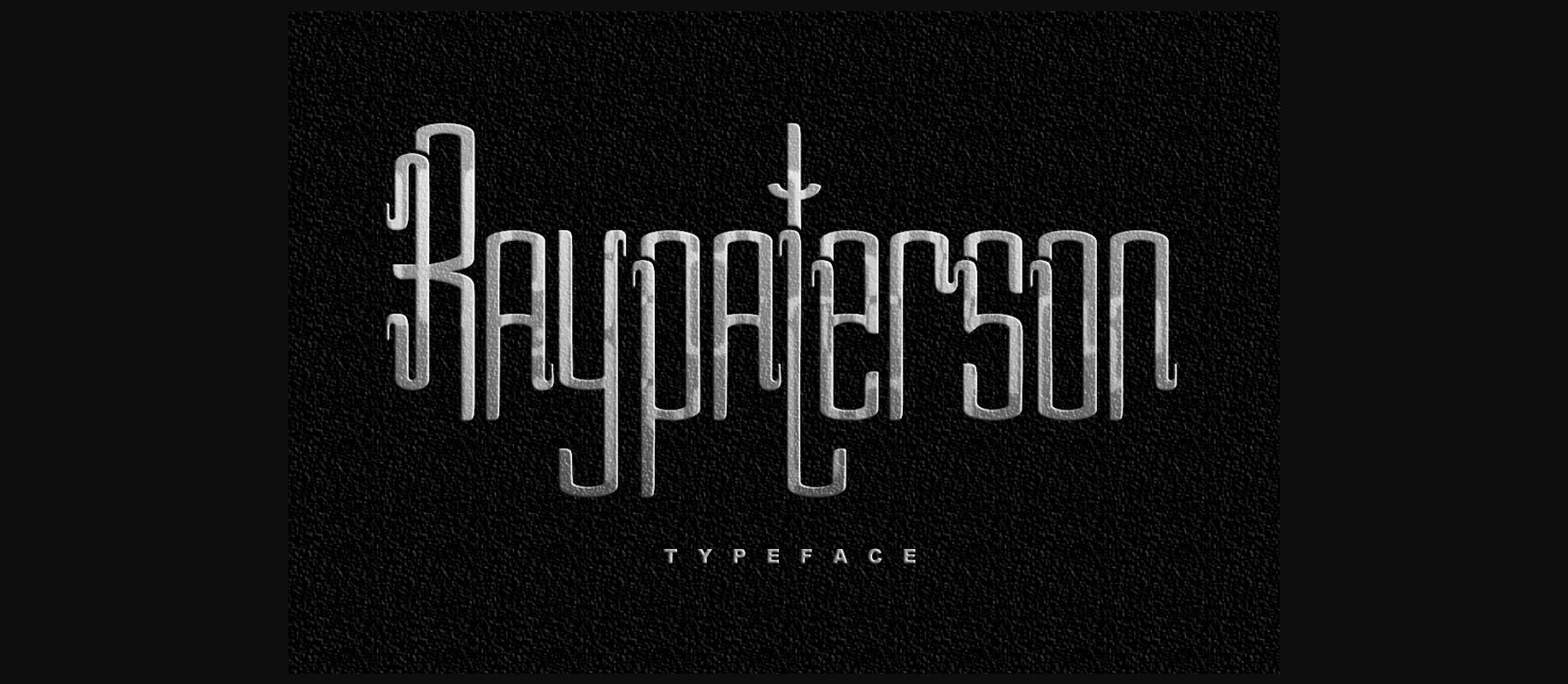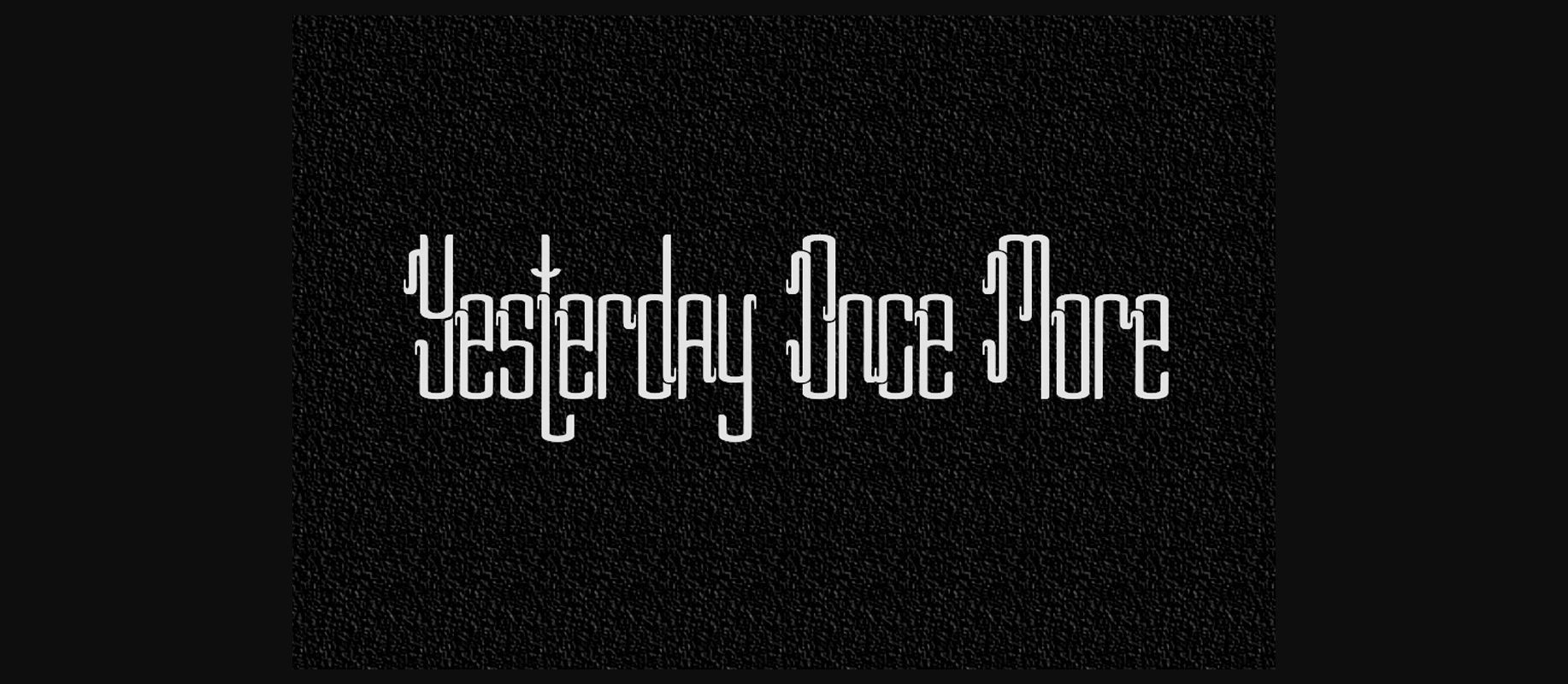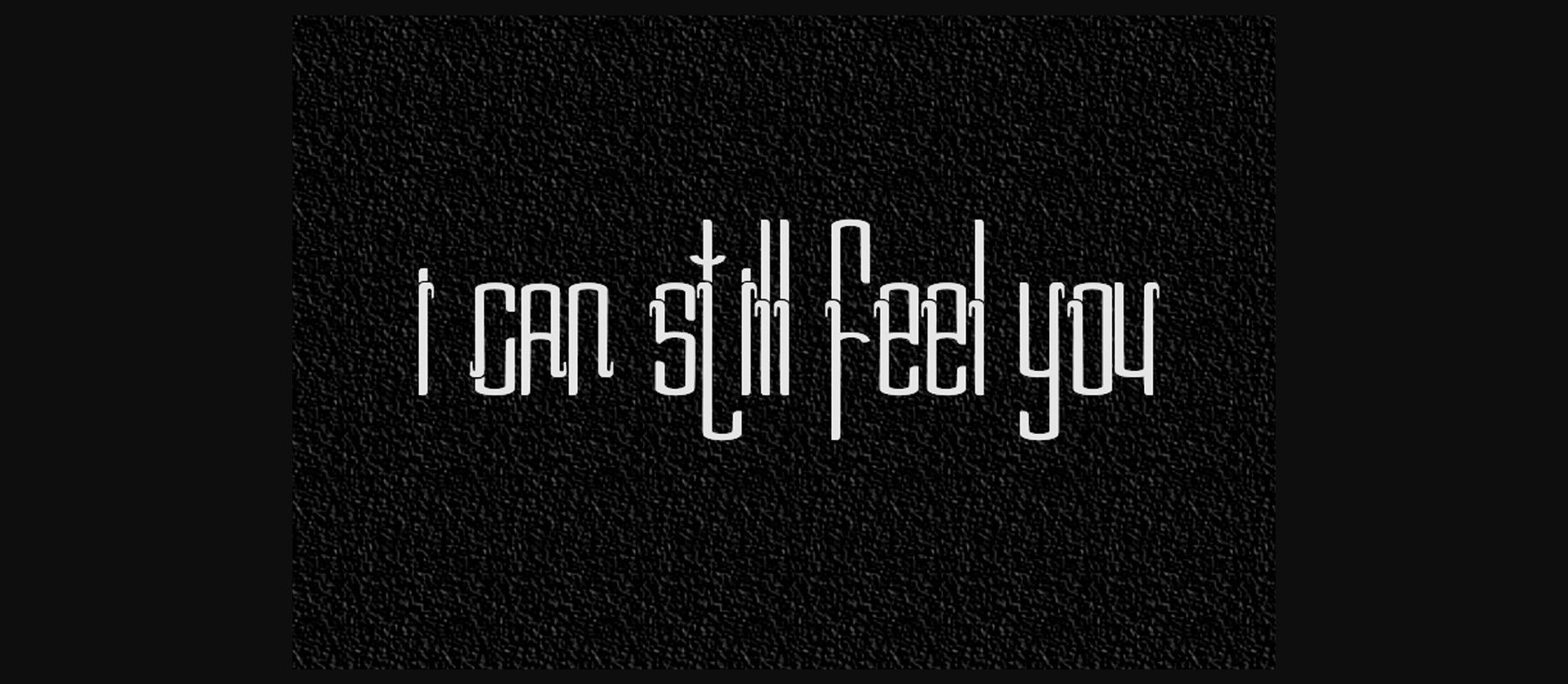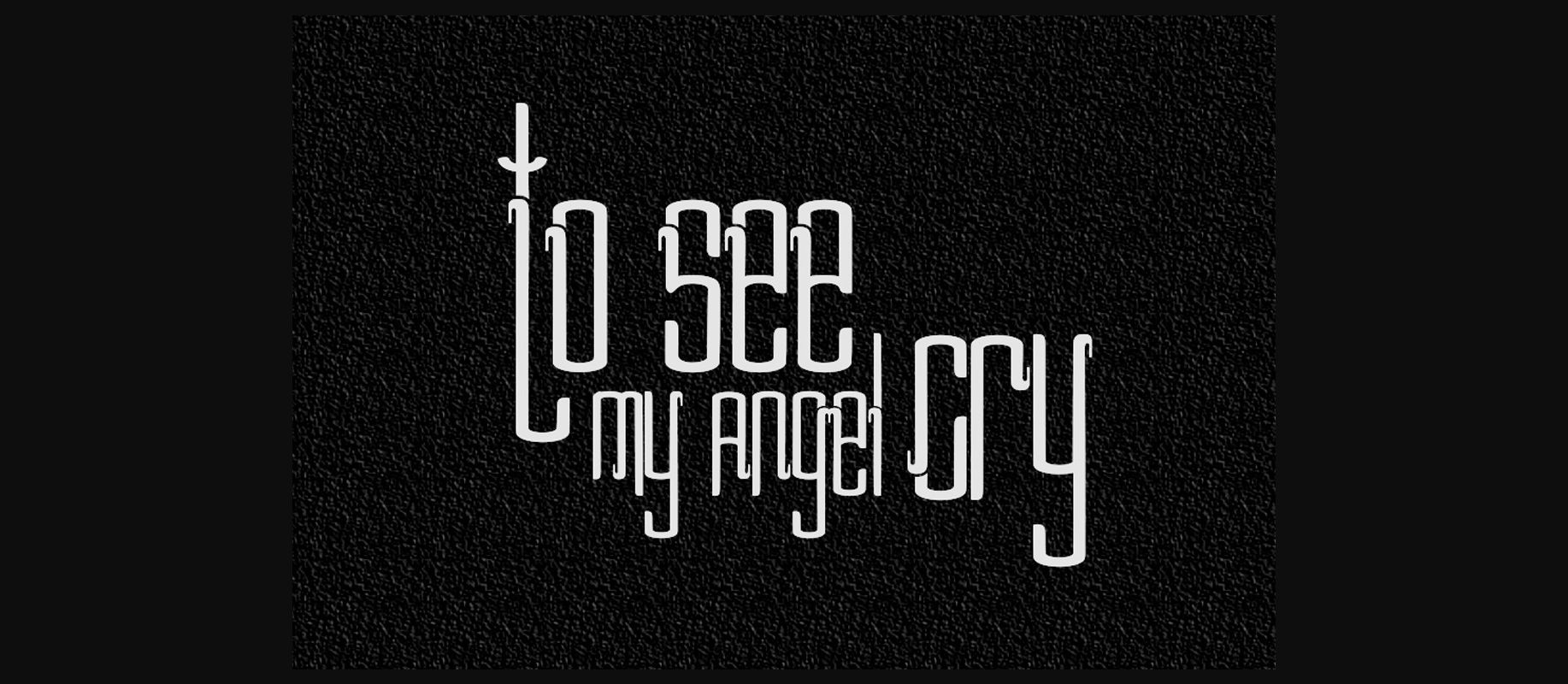
Ray Paterson Font
About Ray Paterson Font
Ray Paterson is an extremely decorative typeface with a classy and vintage feeling character set. This font can be used for numerous decorative or display purposes.